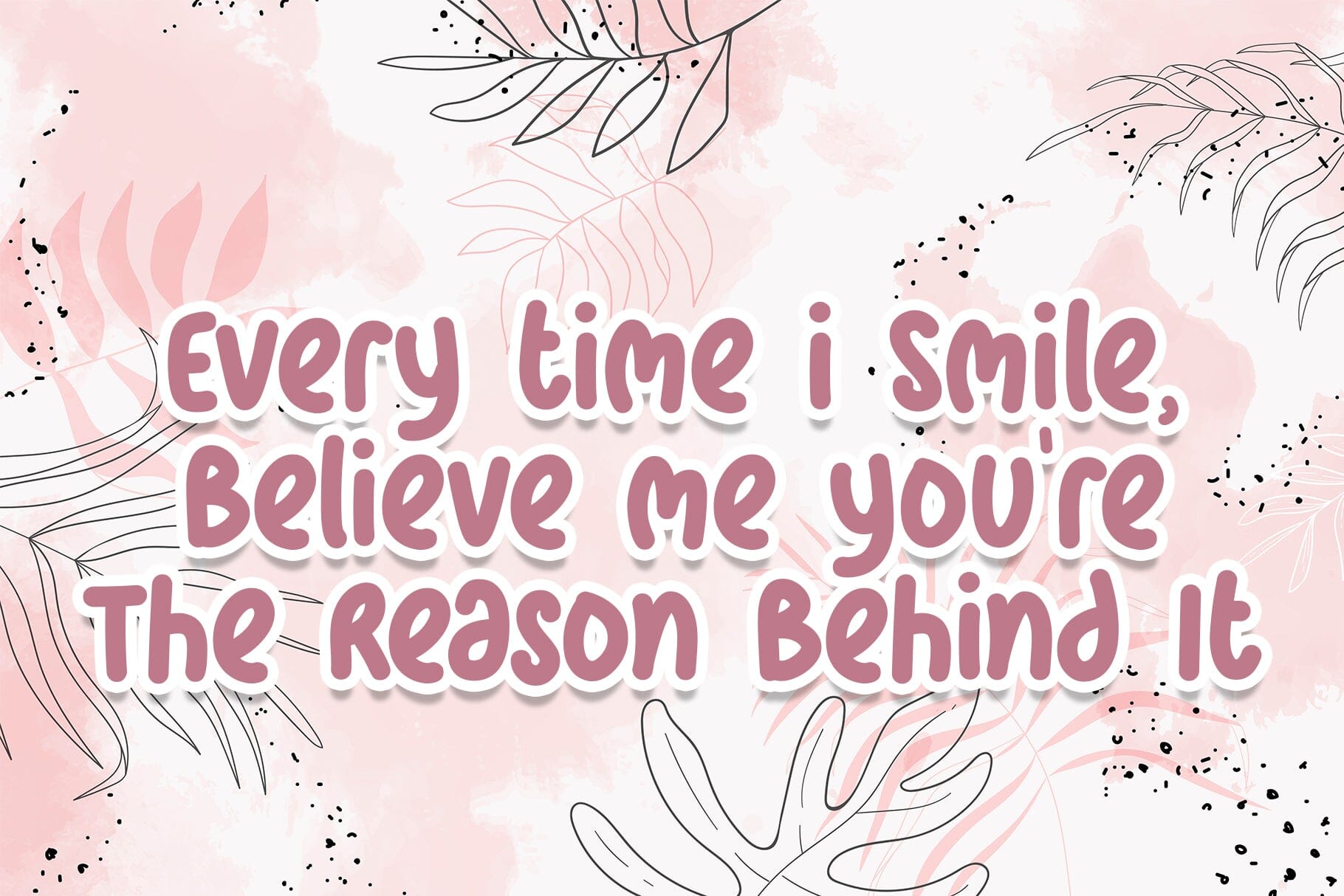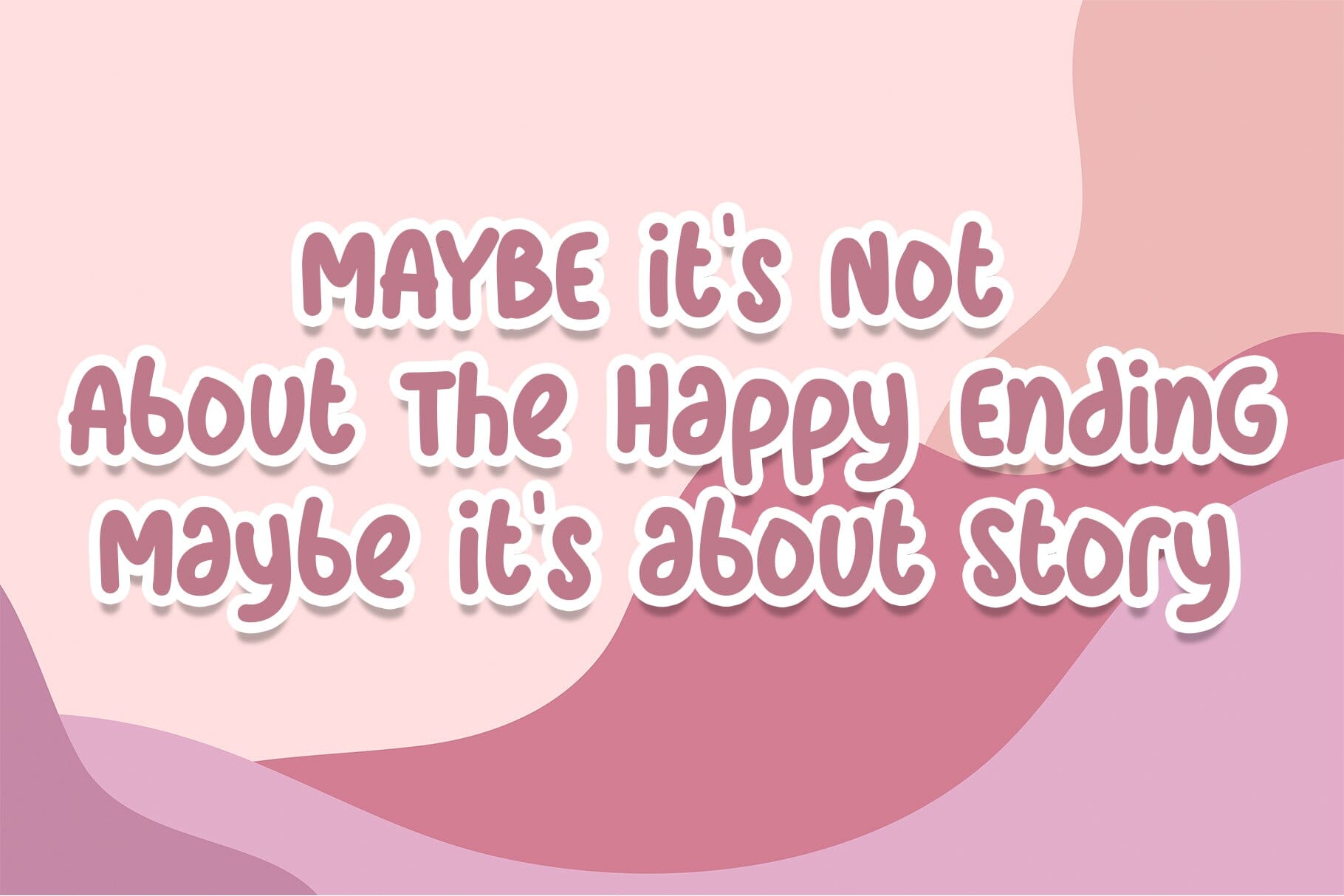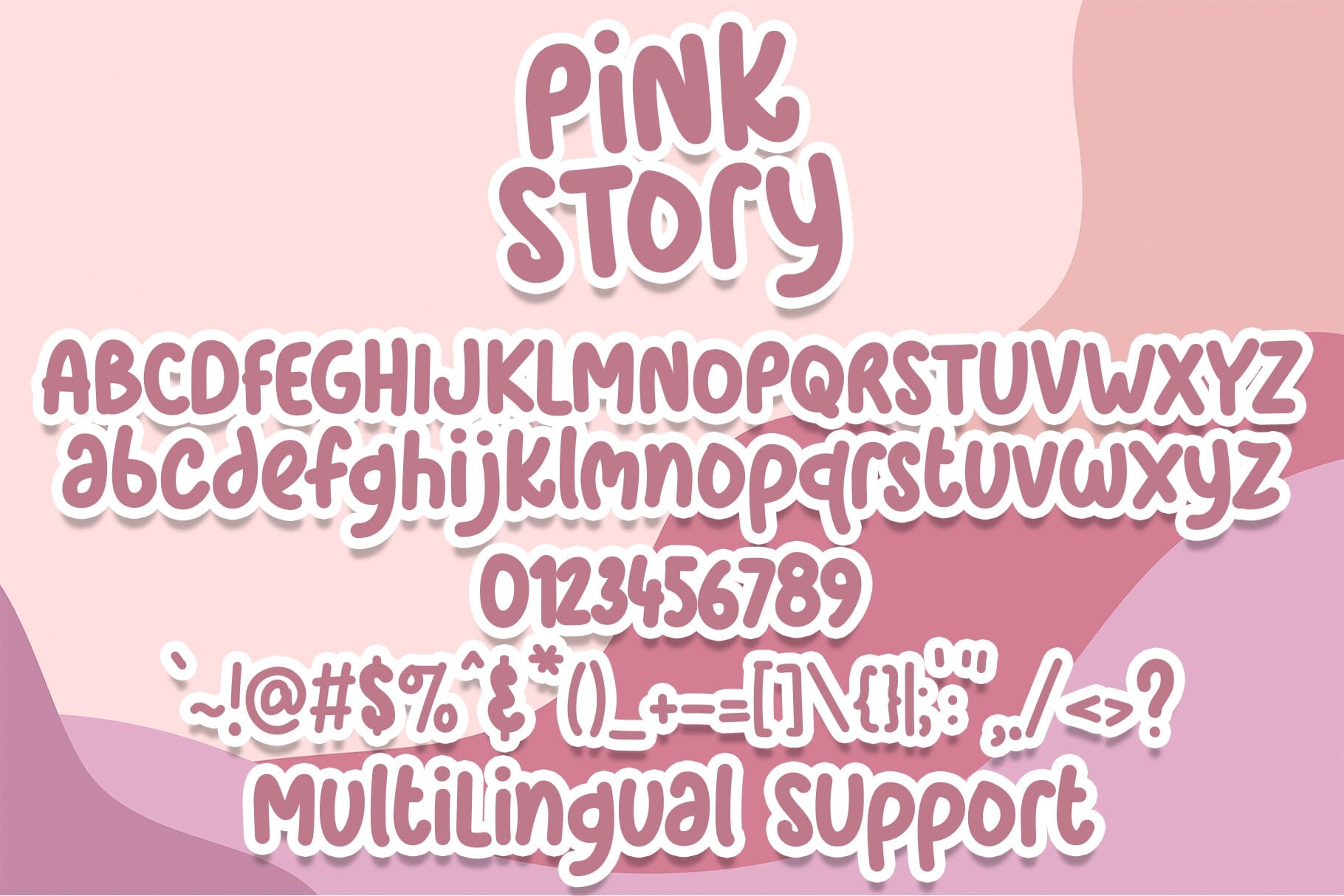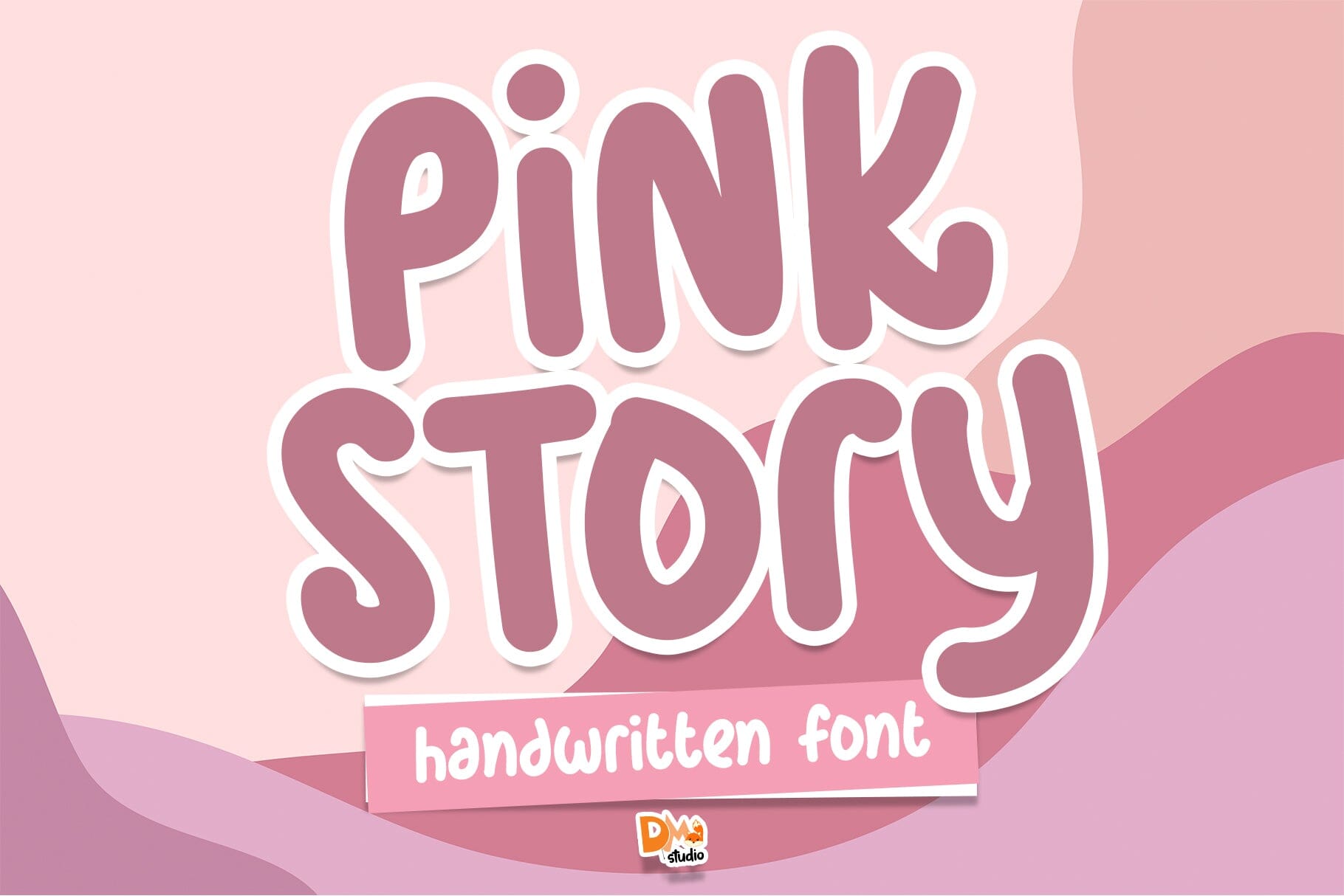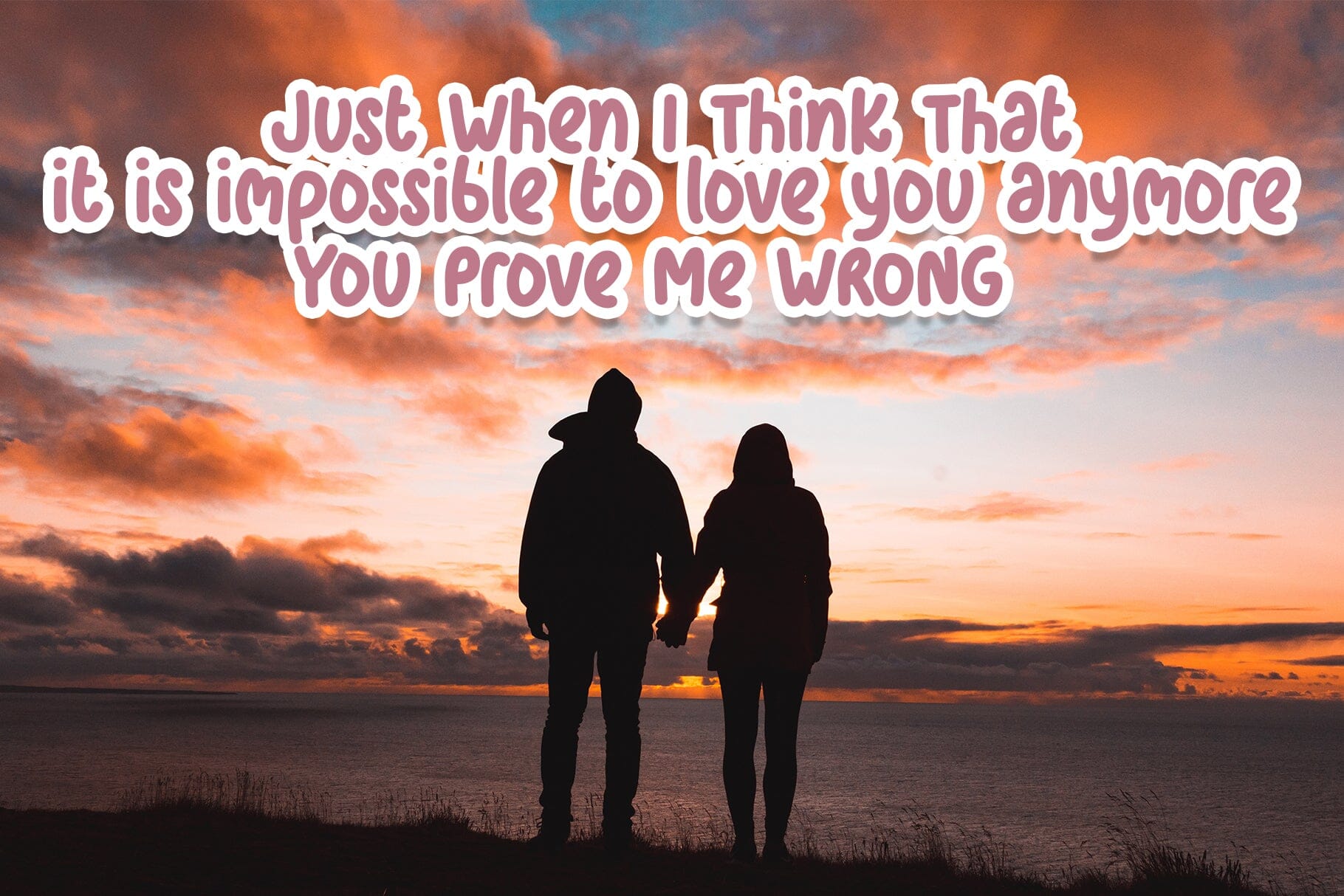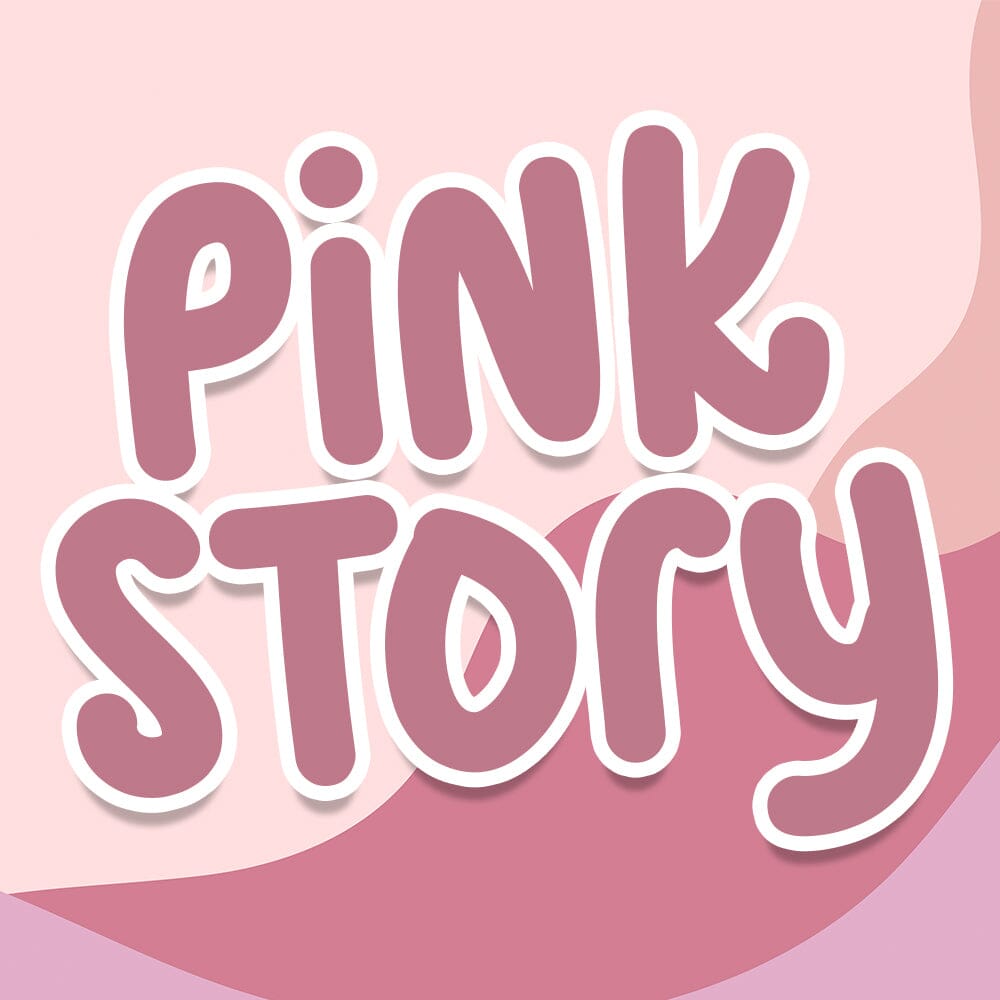
Pink Story Font
Pink Story Font: Elevate Your Designs with Feminine Elegance
Pink Story Font seamlessly blends modern romance with handcrafted charm, offering designers a free, feminine typeface for personal projects. Perfect for wedding stationery, luxury branding, and soft aesthetic social media graphics.
Why Pink Story Font Stands Out
This elegant font balances sophistication and whimsy through:
• Delicate serifs & flowing curves
• Optimized letter spacing for readability
• Versatile application across print/digital
5 Creative Uses for Pink Story Font
1. Luxury Wedding Invitations – Pair with gold foil textures
2. Beauty Brand Packaging – Elegant labels for perfumes
3. Instagram Aesthetic Quotes – Pastel-themed story templates
4. Fashion Lookbooks – Minimalist layouts with feminine flair
5. Personalized Gifts – Custom engraved jewelry designs
Pro Design Tips
• 🎨 Color Pairing: Use #F8C8DC (pink), #FFFFFF (white), #FFD700 (gold)
• 🎨 Font Pairing: Combine with Montserrat for headings
• 🎨 Spacing – Use 1.4em line height for readability